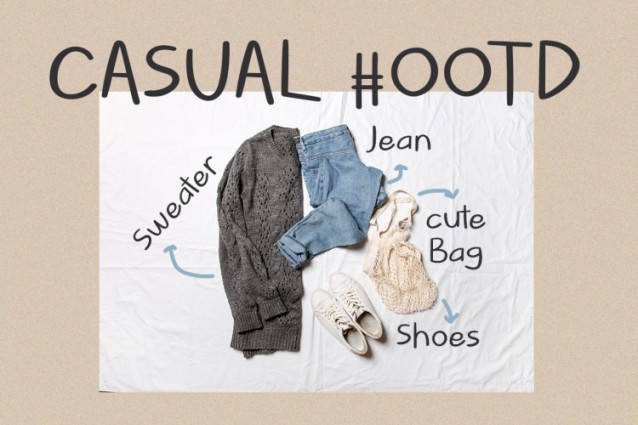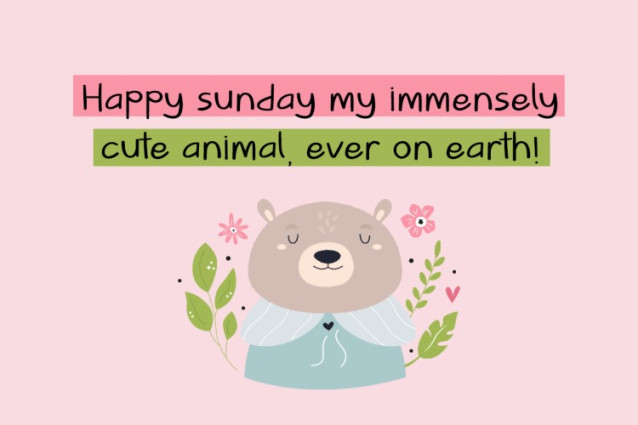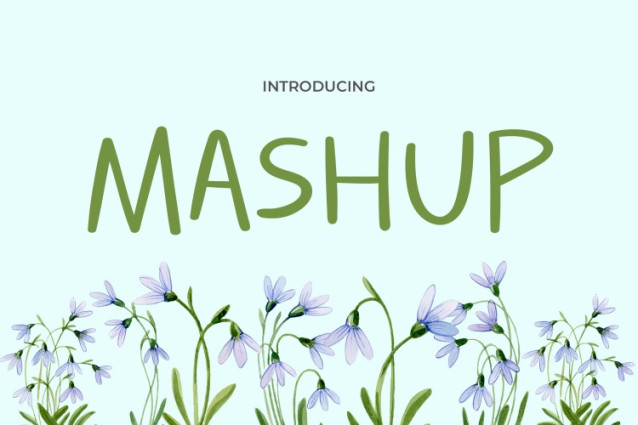
Mashup Font
Mashup Font is a fresh, playful, and versatile typeface that adds charm and cheer to any project. Its smooth, hand-drawn letterforms and organic flow capture the simplicity of handwritten text. Despite its casual look, it maintains a modern and stylish aesthetic. The clean, quirky design suits various themes, from whimsical to minimalistic. Its delicate curves and lightweight style evoke calmness and creativity. This makes it a perfect choice for designs that need a personal and approachable feel.
The font’s slightly elongated characters strike a balance between casual and elegant. It works well with nature-inspired visuals, such as floral patterns or botanical elements. Additionally, it pairs beautifully with soft pastel colors or muted tones. Whether used for headlines, quotes, or short text, Cute Font Mashup ensures your content stays engaging and visually appealing. Its ability to combine playfulness with sophistication makes it suitable for a wide range of creative uses.